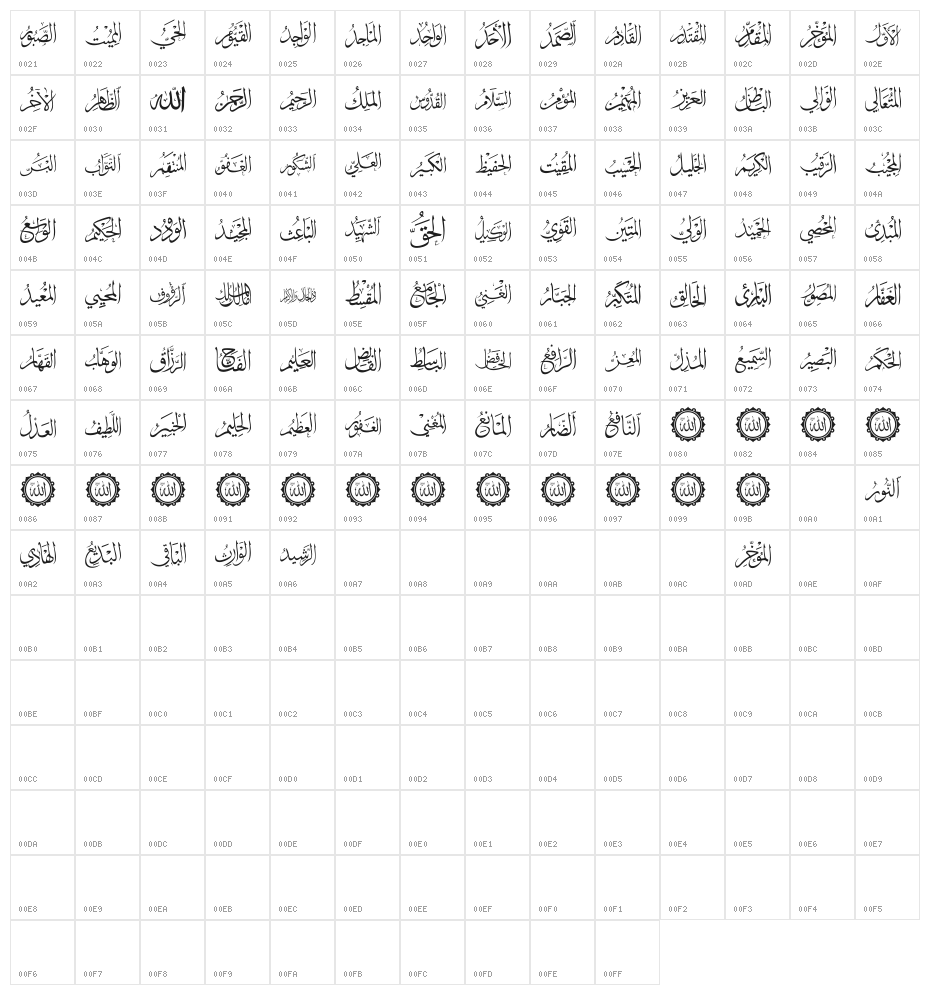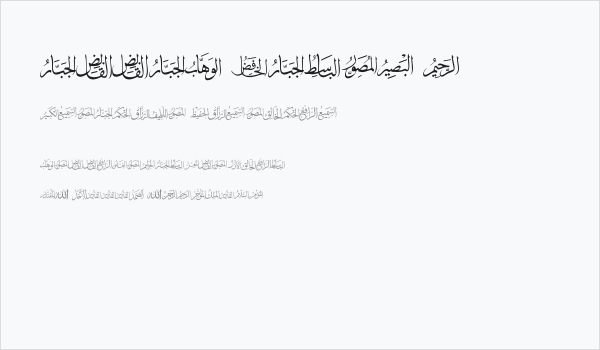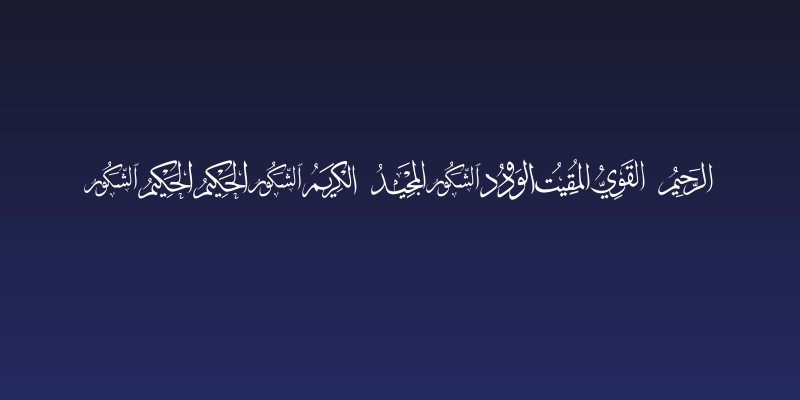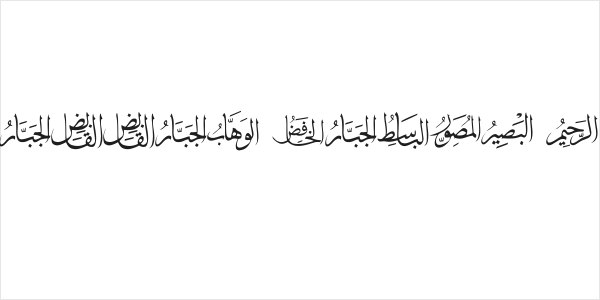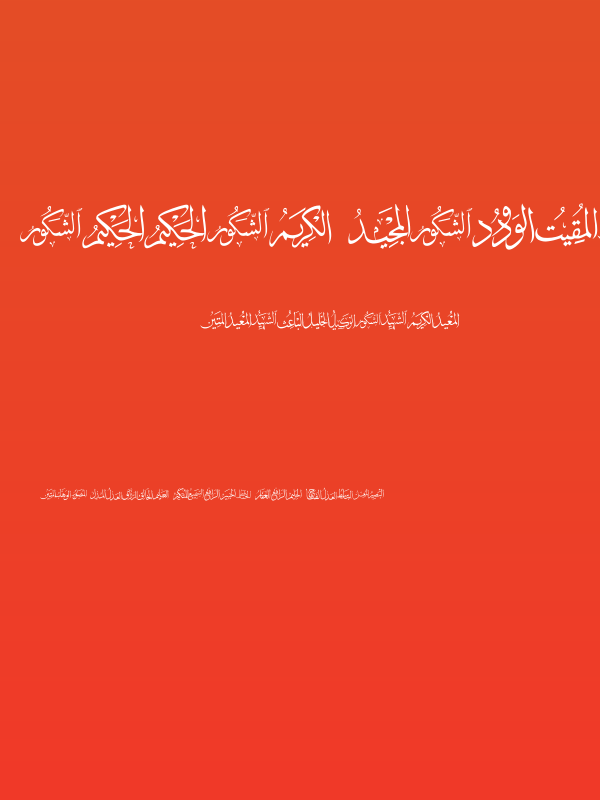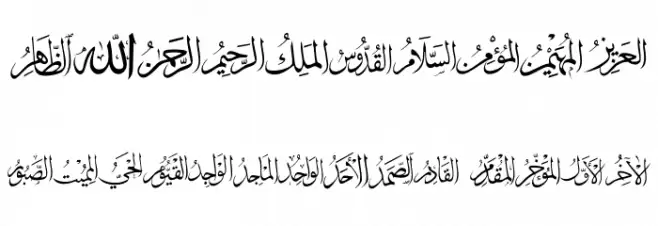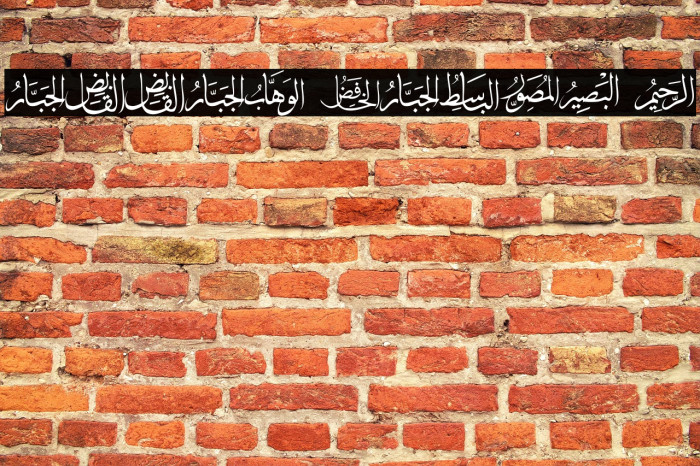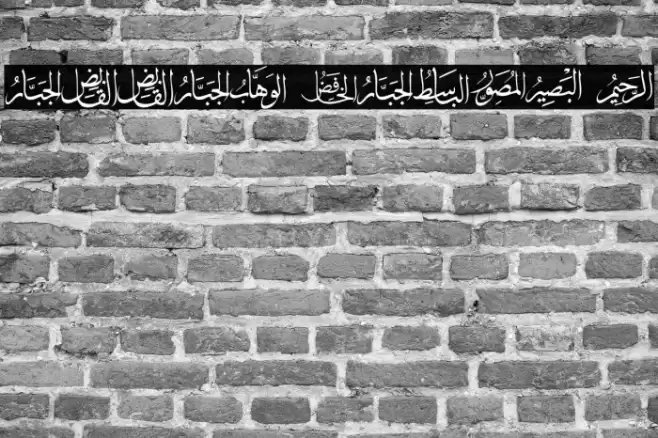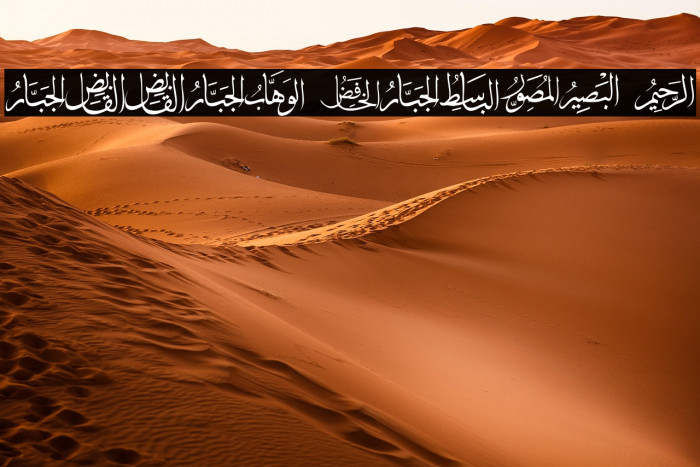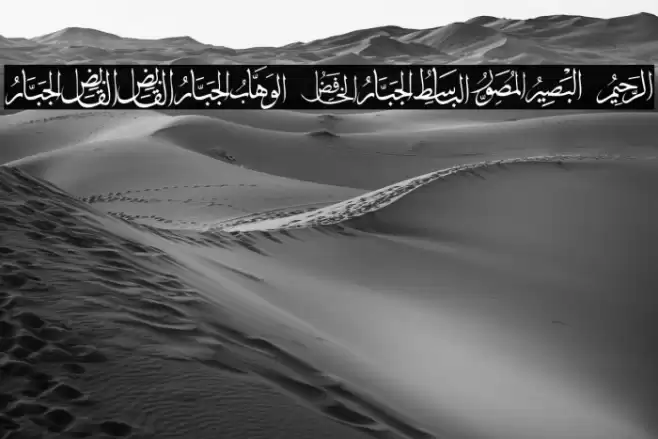
allah names 3 Font
| Gesamtstil | Classic |
| Anwendungsfall | Religious texts, Formal documents, Decorative art |
| Vorgeschlagene Projekte | Ideal for religious texts, formal invitations, cultural publications, and decorative art pieces. |